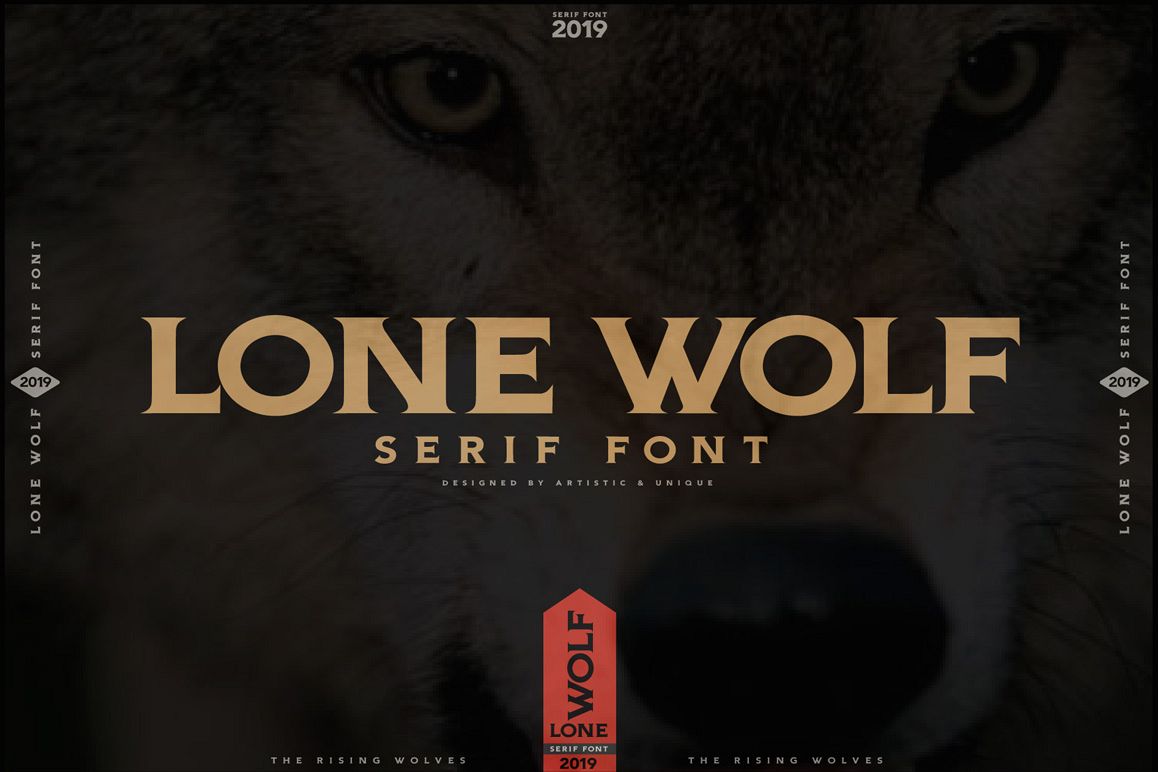
LONE WOLF Serif font
LONE WOLF Serif Font
LONE WOLF Serif font (2019)
INTRODUCING LONE WOLF Serif font.
This font was designed with inspiration from the wild nature and the wolves that are part of it.
Thickness in the font strength, pointed corners represent wildlife.
This definition is part of the wild wolves and wild nature I love.
That's why I named the font the LONE WOLF.